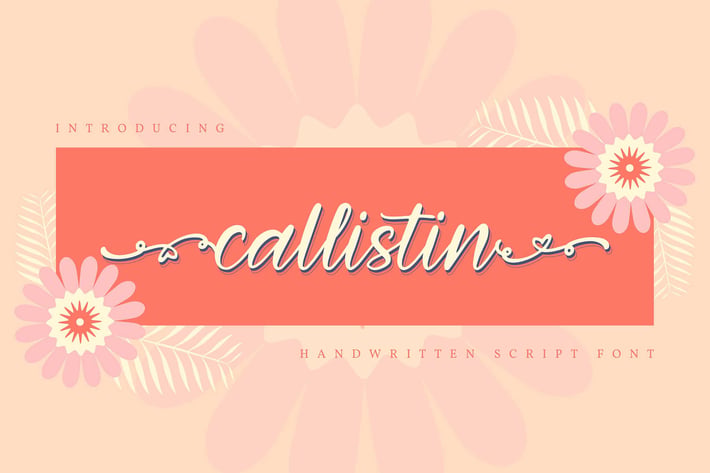
Callistin | Handwritten Script Font
Callistin | Handwritten Script Font with a calligraphy style, So beautiful on invitation like greeting cards, branding materials, business cards, quotes, posters, and more!